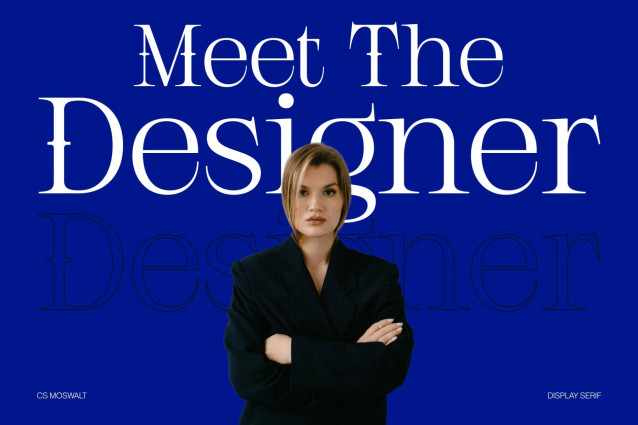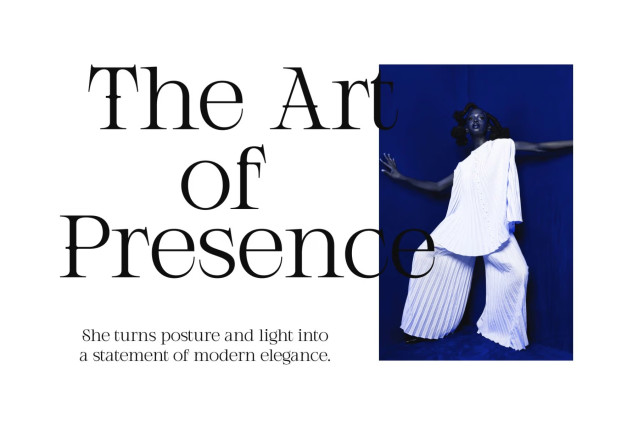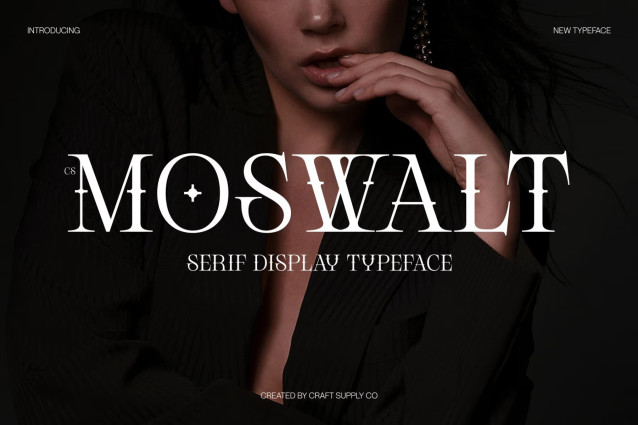
CS Moswalt – Modern Serif Font
CS Moswalt – Decorative Modern Serif with Aesthetic Elegance
Modern Serif with Decorative Aesthetic Style
This is a modern serif font designed to combine contemporary sophistication with decorative beauty. Featuring refined letterforms and an aesthetic-driven design approach, this typeface creates a stylish and artistic visual presence that feels modern, elegant, and expressive. It is crafted for designers who want typography that stands out with charm and personality.
Decorative Details with Artistic Appeal
The defining character of this font lies in its decorative styling and carefully crafted serif details. Smooth curves and refined accents create a graceful rhythm across every composition, giving headlines and titles a visually captivating appearance. These artistic touches enhance the font’s personality while maintaining clarity and readability.